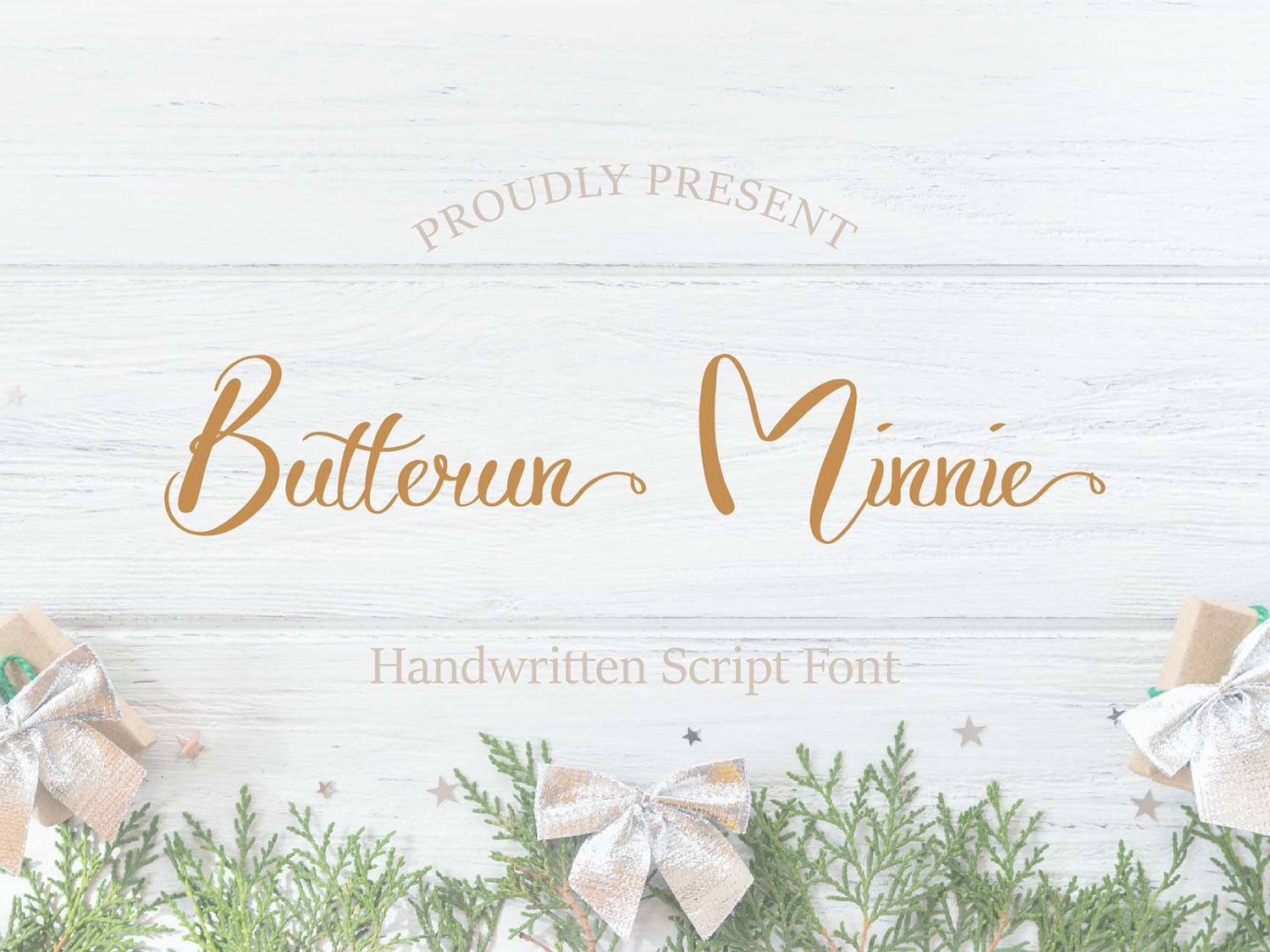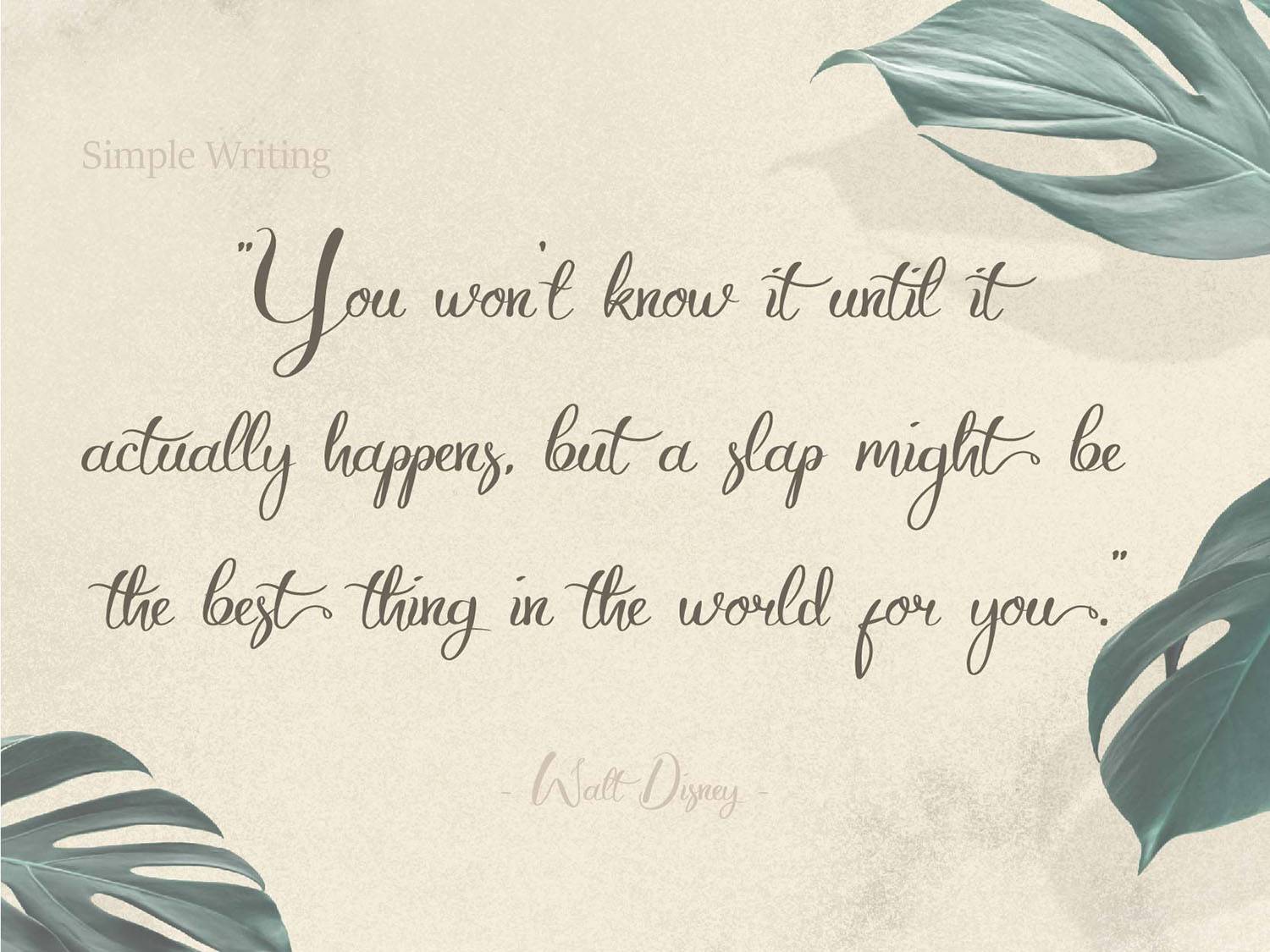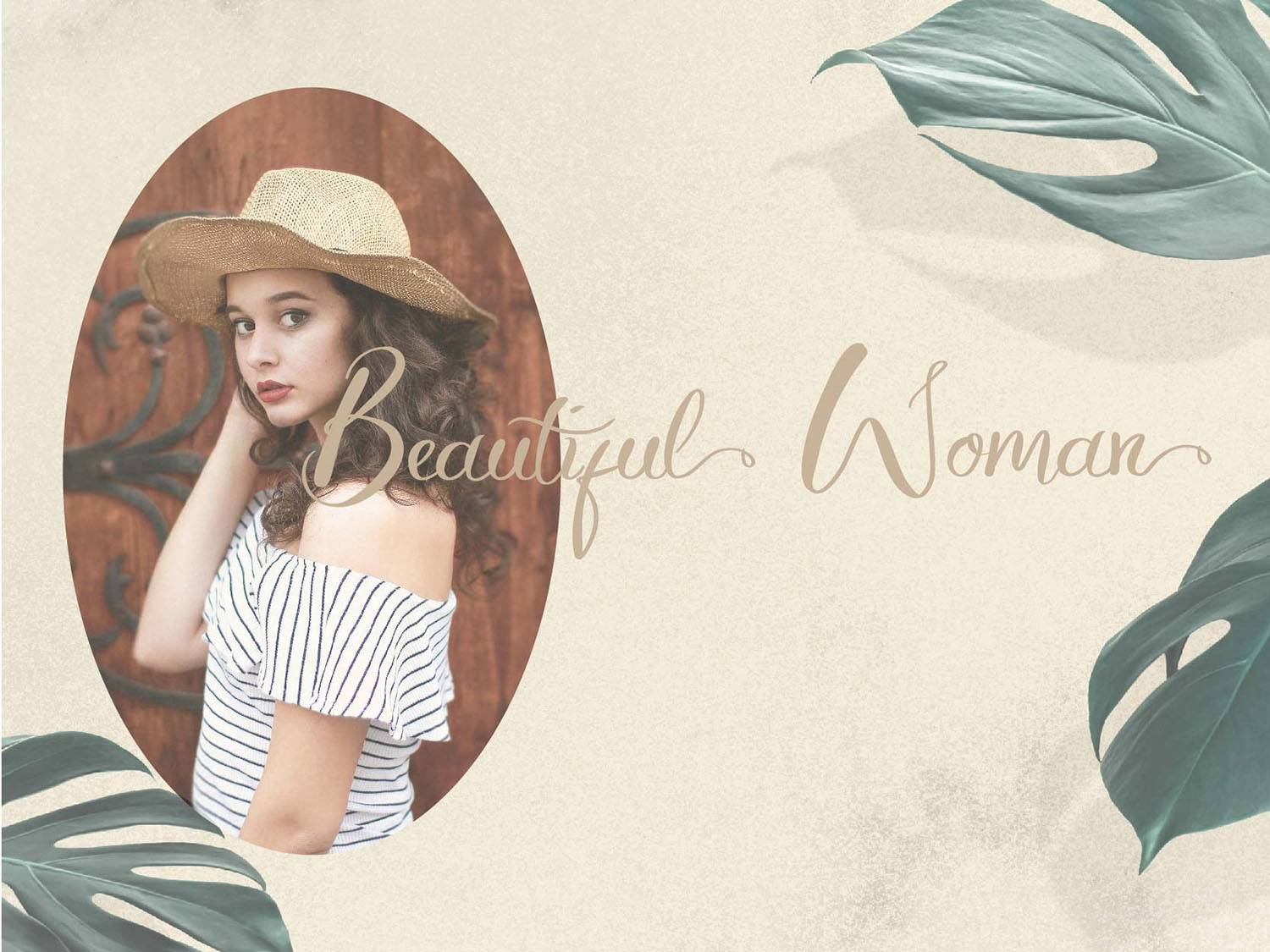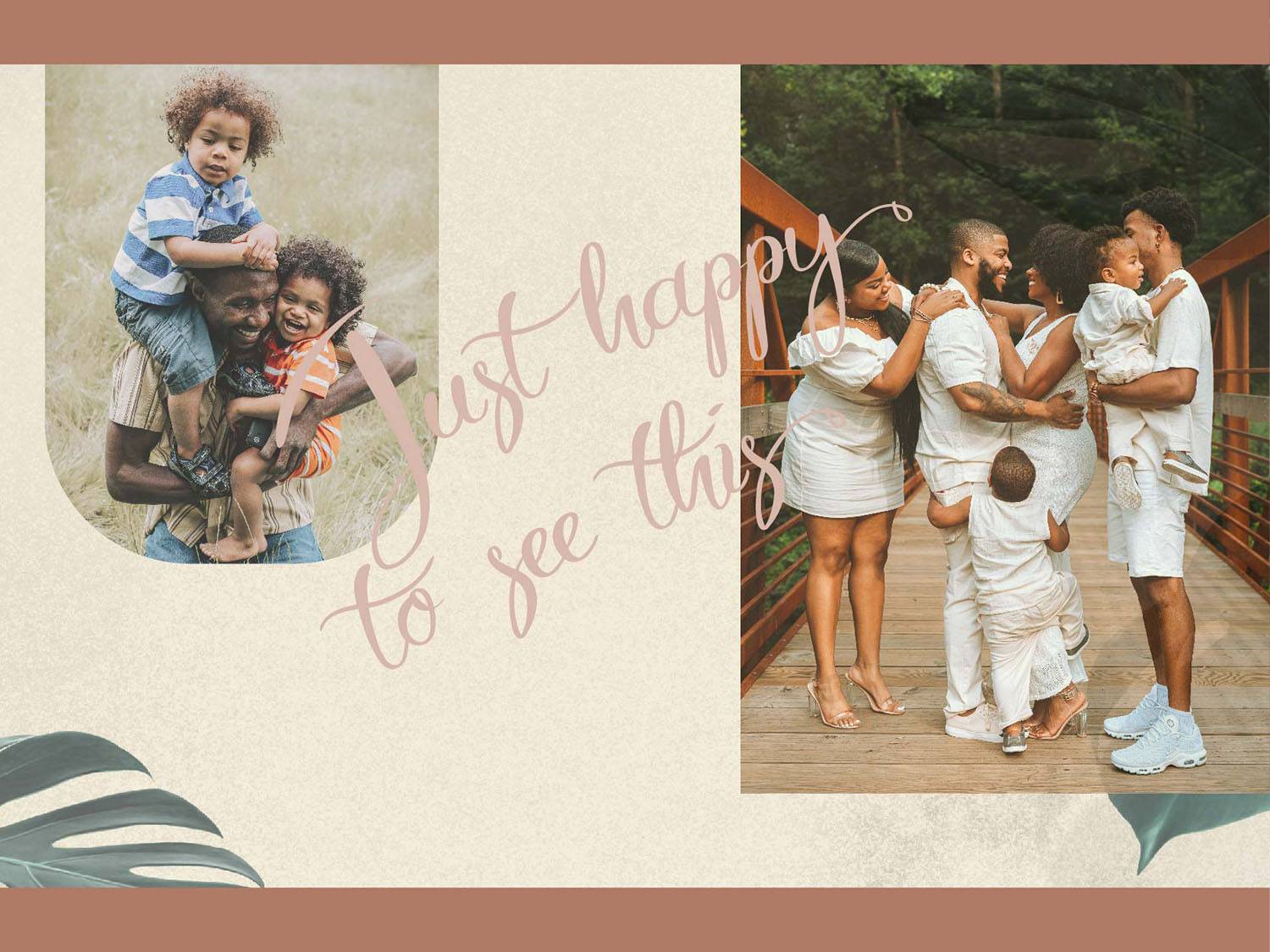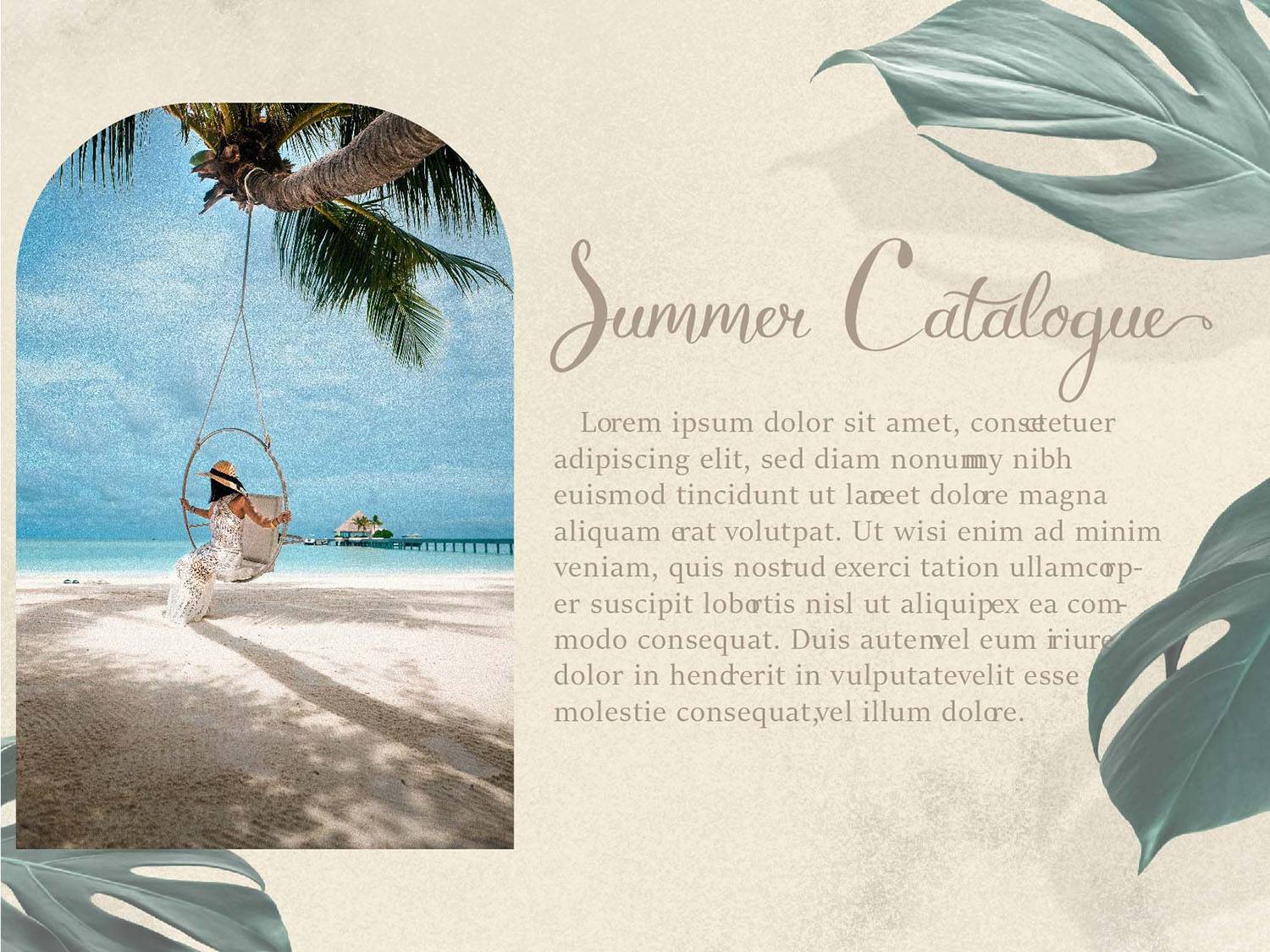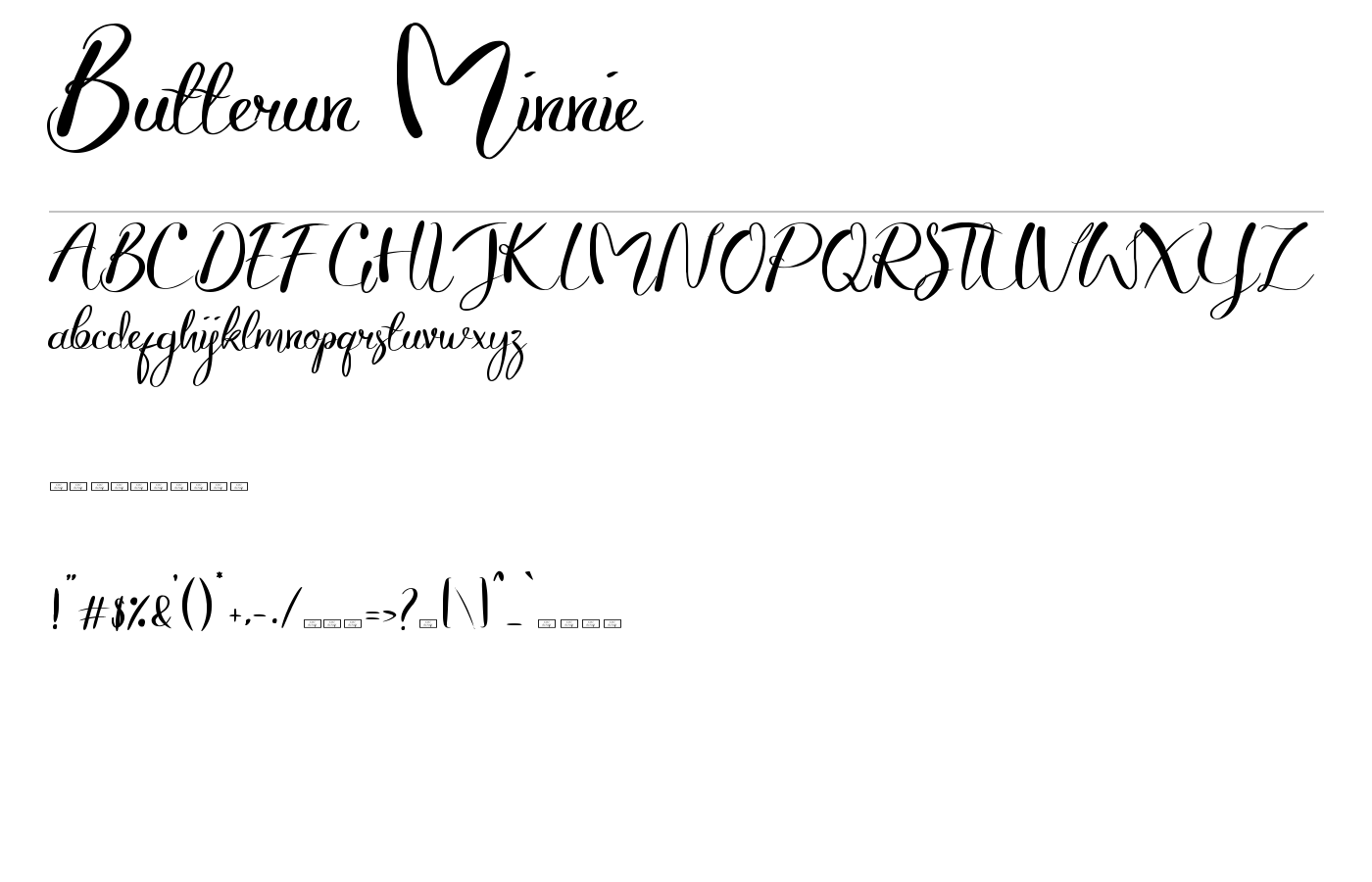
Butterun Minni is a delicate and elegant script font characterized by its smooth, flowing strokes and high contrast between thick and thin lines. It exudes a graceful, feminine charm with its slender letterforms and stylish flourishes, making it ideal for wedding invitations, fashion branding, or sophisticated editorial design. This font’s refined personality and handwritten feel bring a touch of modern romance and artistry to any project.
Butterun Minni Font
About Butterun Minni Font
| Font family | Butterun Minni Font |